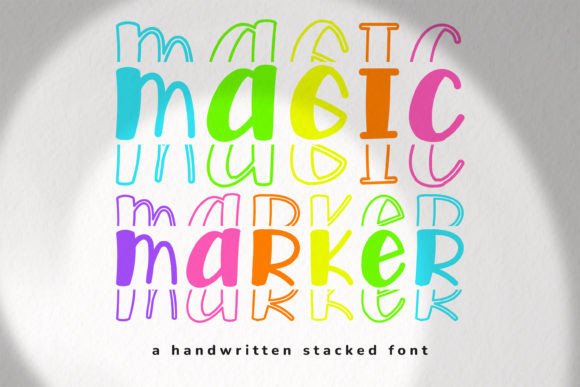
Magic Marker: A Display Font That Feels Like Hand-Drawn Warmth
It was late afternoon, and I was tweaking the header for a seasonal lifestyle blog redesign—something soft, intentional, and quietly confident. The content was all about slow mornings, handmade ceramics, and quiet rituals. But the current font felt too polished, too neutral. It didn’t whisper; it announced. So I reached for Magic Marker. Within minutes, the blog’s top banner softened—not in contrast or volume, but in intention. The letters held breath. They looked like they’d been drawn with care, not generated by algorithm. That’s when I knew this wasn’t just another display font. It was a mood-setter.
A Typeface With Rhythm, Not Just Shape
Magic Marker is a modern display font with unmistakable handwritten character—but it avoids the pitfalls of many script fonts. There’s no forced flourish, no exaggerated swash that distracts from meaning. Instead, its rhythm comes from gentle variation in stroke weight, subtle baseline undulation, and a relaxed, slightly uneven x-height that feels human without sacrificing clarity. Letters sit comfortably beside one another, with generous spacing baked into the design—not as an afterthought, but as part of its editorial DNA.
What makes Magic Marker especially useful in real layouts is how it holds attention without shouting. In a digital magazine feature on small-batch tea makers, I used it for pull quotes set against muted linen textures—and readers paused there, longer than expected. In a printable coaching workbook, it anchored section headers (“Pause,” “Breathe,” “Return”) with warmth and approachability, never competing with the clean sans serif body text beneath.
Where Magic Marker Finds Its Editorial Home
This font thrives where tone matters more than speed: blog headers, ebook covers, newsletter banners, chapter openers, and worksheet titles. It’s ideal for creators whose voice leans thoughtful, grounded, or gently expressive—think recipe ebooks with hand-sketched ingredients, wedding guides that favor intimacy over extravagance, or digital planners built around reflection rather than productivity pressure.
In practice, Magic Marker works best at medium to large sizes—18pt and up for print, 24px and up on screen. It’s not designed for dense paragraphs or captions under 14px. Its charm lies in breathing room, so it shines when given space to settle: a single line of cover text, a centered title on a PDF course module, or a bold tagline above a social media graphic. On mobile, it renders cleanly across iOS and Android when embedded properly (WOFF2 for web, OTF/TTF for desktop apps), though I always test at 320px width to confirm letterforms retain their integrity.
Readability Is Quiet, Not Compromised
There’s a misconception that expressive display fonts sacrifice legibility. Magic Marker doesn’t. Its lowercase ‘a’, ‘g’, and ‘e’ are open and familiar. The ‘t’ has a clear crossbar; the ‘r’ avoids ambiguity with the ‘n’. It’s not a script you need to decode—it’s handwriting you recognize instantly, like a friend’s note left on your kitchen counter. That familiarity supports quick comprehension, even in fleeting moments: a newsletter subscriber scrolling past, a reader flipping through a PDF guide on their tablet, someone glancing at a printed planner page while sipping coffee.
That said, Magic Marker isn’t meant for long-form reading. It’s not a body font. Nor does it replace a sturdy serif for elegant article text or a crisp sans serif for navigation menus and footnotes. Its role is structural *and* emotional: to signal tone before a single word is read, to create visual hierarchy by sheer presence, and to reinforce brand identity through consistent, considered use.
Thoughtful Pairings and Practical Considerations
I’ve paired Magic Marker most often with a warm, low-contrast serif—like Merriweather or EB Garamond—for body copy in printables and ebooks. For digital-first projects, Inter or Source Sans Pro offer clean contrast without coldness. The pairing works because Magic Marker brings texture; the companion font brings stability. Neither overwhelms the other. And crucially, both support accessibility: sufficient contrast, scalable line heights, and OpenType features that respect system preferences.
When Less Is Anchored in More
Magic Marker doesn’t try to be everything. It doesn’t mimic calligraphy tools or simulate chalkboard grit. It simply offers a kind of typographic kindness—unhurried, and deeply intentional. In a landscape crowded with high-contrast fonts and aggressive display type, it stands out by leaning in, not up. It reminds us that sometimes the strongest editorial statement isn’t boldness, but breath. Not precision, but presence.